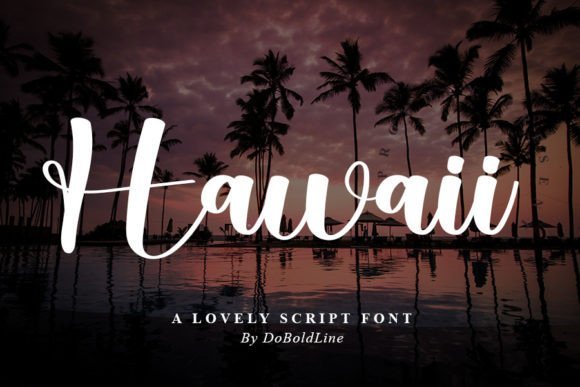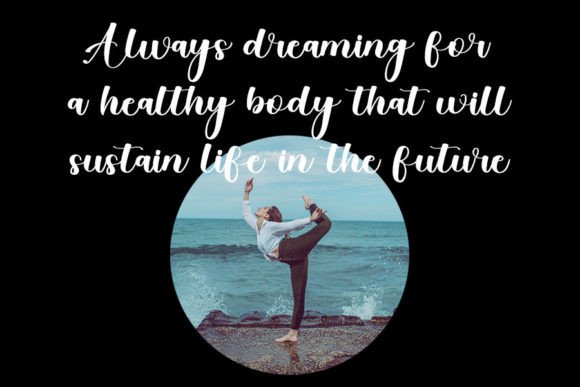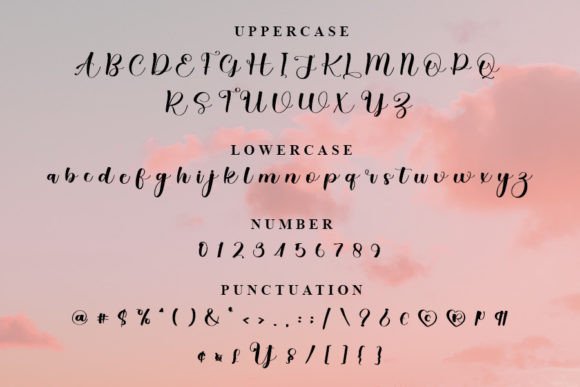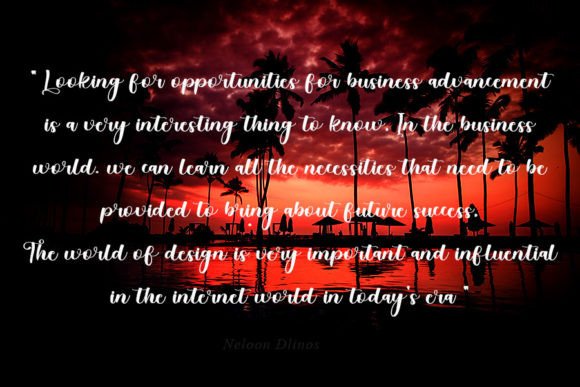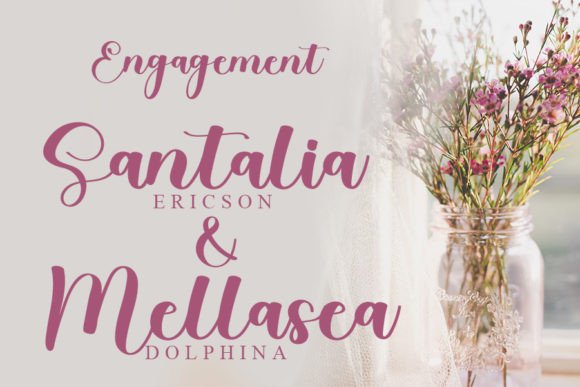
Discover the Tropical Charm of Hawaii Font
As you sit at your desk, surrounded by half-finished projects and scattered ideas, you know the moment of inspiration will strike – and it’s not just about finding the perfect font. But when it does, the possibilities seem endless. For designers, the search for the perfect typeface is a constant quest for perfection, and the right font can make all the difference.
Enter Hawaii Font, a stylish handwritten font that embodies the carefree spirit of the islands. With its contemporary atmosphere and impeccable form, inspired by timeless classic calligraphy, Hawaii Font is the perfect addition to any project. Its balanced and varied design will elevate your creations and leave a lasting impression.
Hawaii Font Key Features
- Unique Characteristics: Features a unique blend of traditional Hawaiian and modern design elements, with a focus on legibility and readability.
Hawaii Font Review
At first glance, the Hawaii Font is a visually appealing font that captures the essence of tropical paradise. The font features a mix of curved lines and rounded edges that evoke a sense of relaxation and calmness. ✨ The use of bright and pastel colors adds to its playful and fun vibe, making it perfect for travel and tourism-related projects.
However, upon closer inspection, I noticed a few limitations. The font is not as versatile as I would have liked, with limited font sizes and styles available. This might make it challenging to use in more complex projects where customization is necessary. ⚠️ Additionally, some of the characters may not render correctly in certain browsers, which could be a concern for users who require cross-browser compatibility.
Overall, the Hawaii Font is a great choice for projects that require a fun and playful touch. While it may not be the most versatile font, its unique design and bright colors make it stand out from more traditional fonts. With some careful planning and consideration, the Hawaii Font can be a great addition to any design project.
- Unique design with curved lines and rounded edges
- Bright and pastel color options
- Perfect for travel and tourism-related projects
- Limited font sizes and styles available
- May not render correctly in certain browsers
Hawaii Font Practical Application Guide
Tips for Getting the Most Out of the Hawaii Font
The Hawaii Font is a beautiful, tropical-inspired font that’s perfect for summer-themed designs. To get the most out of it, try using it in combination with bright, bold colors and playful graphics. You can also experiment with different font sizes and styles to create a unique look.
The Hawaii Font is perfect for:
- Summer-themed designs, such as beach invitations or vacation brochures. Alternatives to Hawaii Font
Pacifico is a beautiful, elegant script font that is perfect for creating a tropical and relaxing atmosphere. It is ideal for use in logos, invitations, and other design elements where a touch of elegance is needed. Compared to Hawaii Font, Pacifico has a more refined and sophisticated look, making it suitable for high-end designs.
Great Vibes is a fun, energetic font that is perfect for creating a lively and playful atmosphere. It is ideal for use in advertisements, posters, and other design elements where a bold and attention-grabbing look is needed. Compared to Hawaii Font, Great Vibes has a more modern and edgy look, making it suitable for younger audiences.
Is the Hawaii Font optimized for digital use?
Yes, the Hawaii Font is optimized for digital use, including screen display and web applications. It includes features such as hinting and kerning to ensure clear and readable text at various font sizes and resolutions.